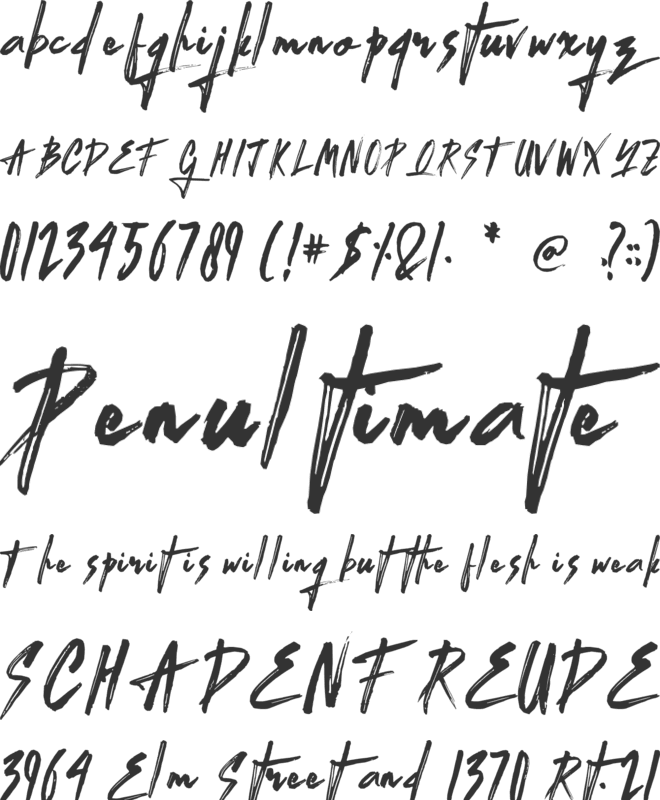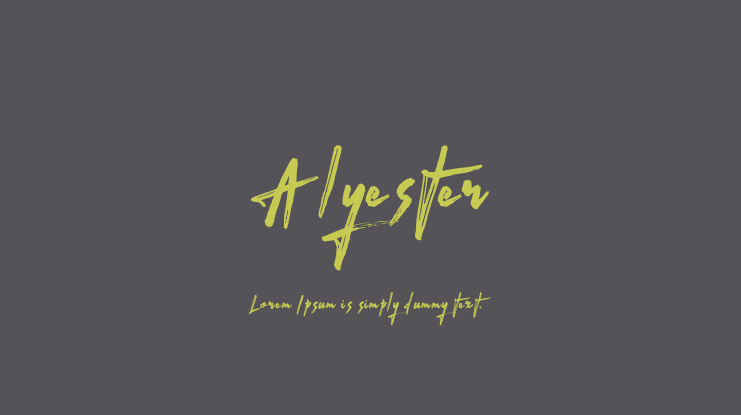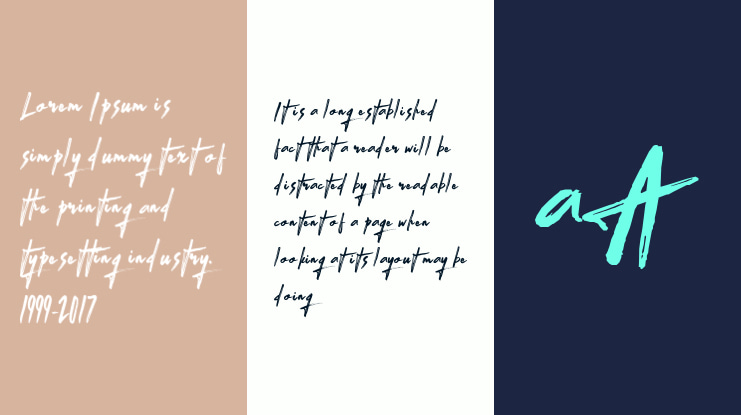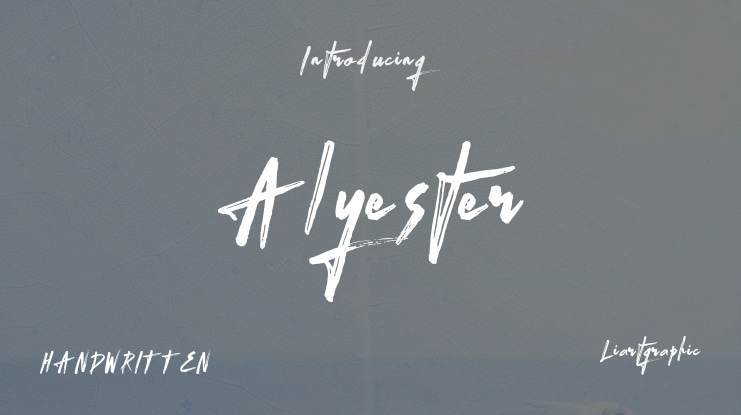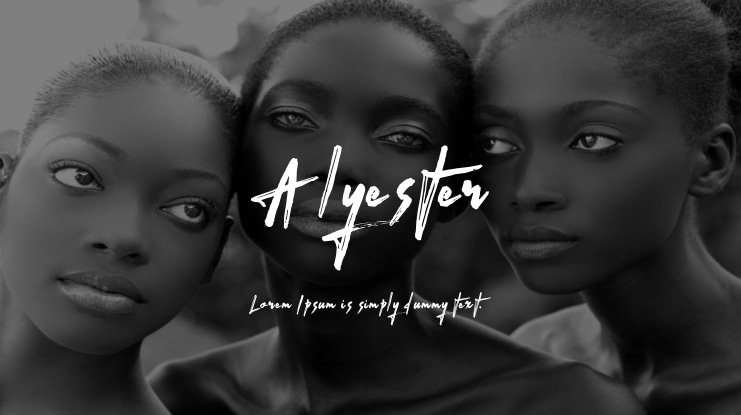
Alyester Font
Liartgraphic
Hello there! I am excited to share with you a unique font that can be utilized for various design purposes such as packaging, logos, magazines, landing pages, and flyers. If you are interested in purchasing a license, please check out the link provided below.